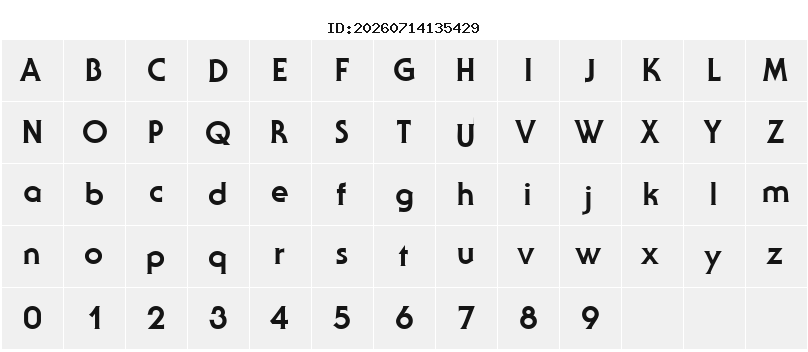
JennyExtDB Preview
• Font Name: JennyExtDB
About JennyExtDB.ttf
JennyExtDB.ttf is a modern, elegant sans-serif font designed for ultimate readability and visual harmony. Perfect for branding, headlines, web design, and print materials.